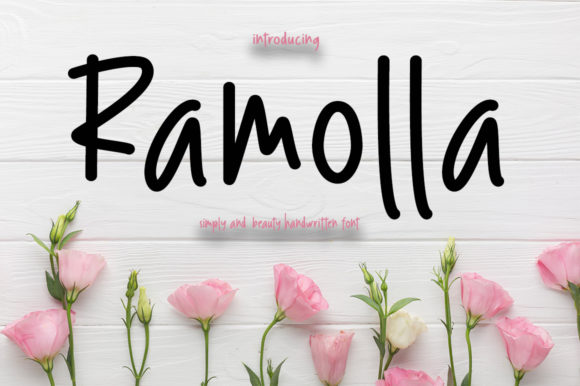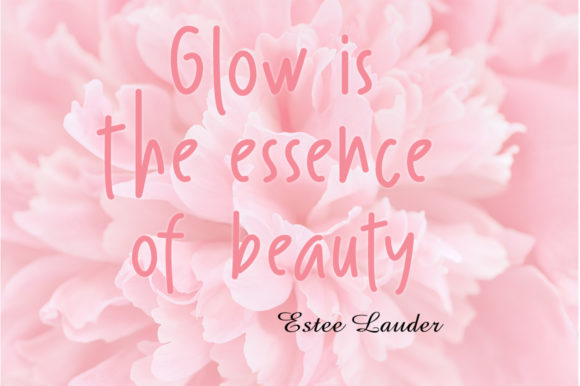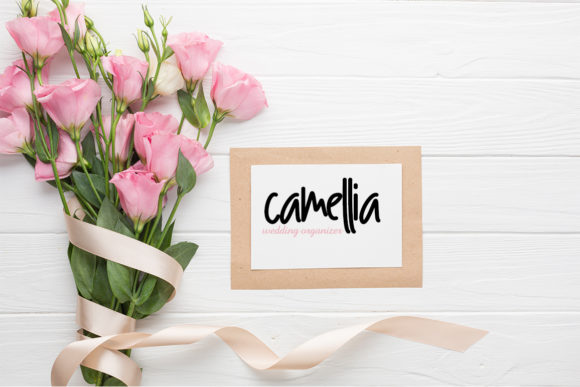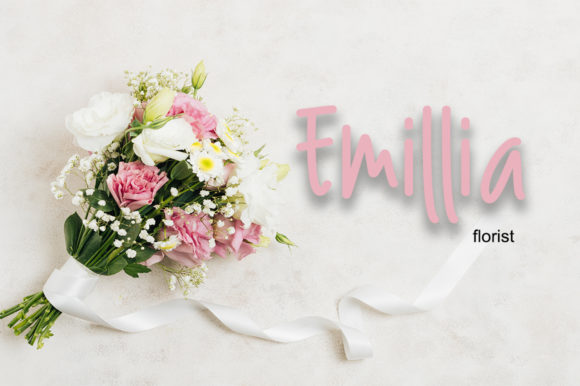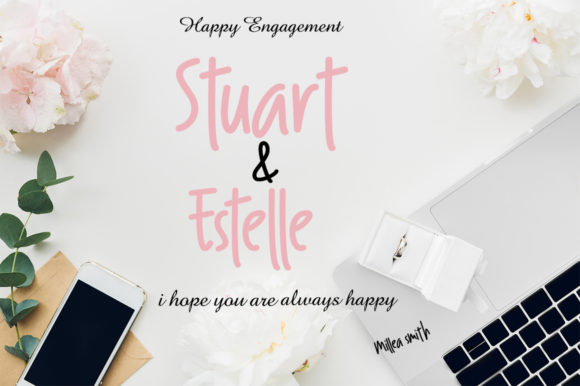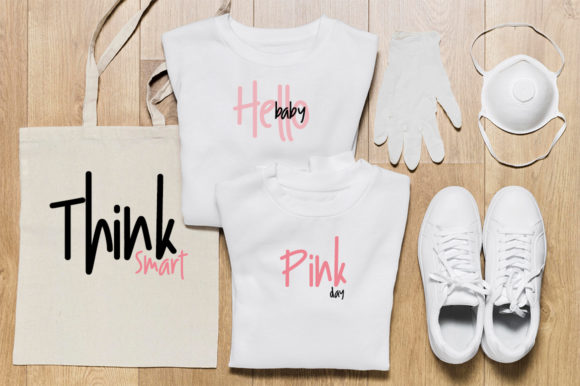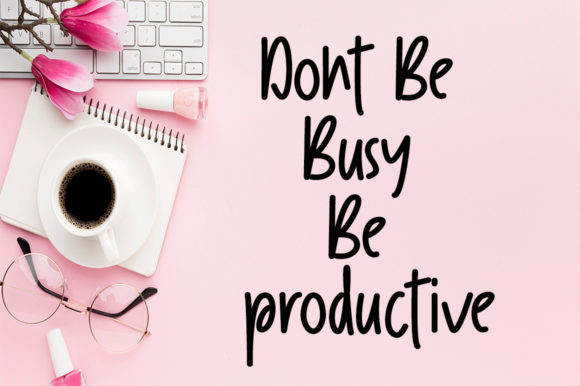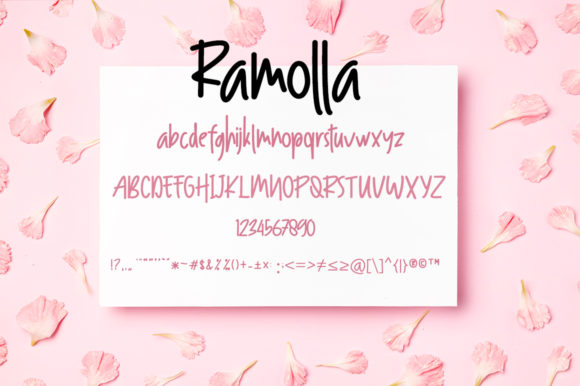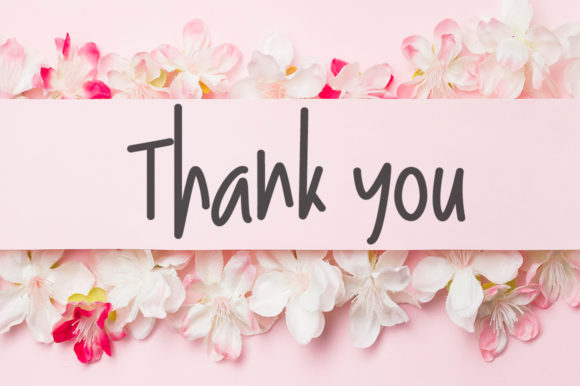
Ramolla Font
About Ramolla Font
Ramolla sounds like a delightful and versatile handwritten font that brings a sweet and friendly touch to any design. With its natural and unique style, Ramolla offers endless possibilities to create charming and creative projects. Here are some ideas on how to use Ramolla to add warmth and personality to your designs:
1. Personalized Stationery: Design personalized stationery sets, including notepads, letterheads, and envelopes, using Ramolla to make each piece feel warm and inviting.
2. Handwritten Quotes: Create beautiful quote graphics with Ramolla to share inspirational or uplifting messages on social media or as wall art.
3. Greeting Cards: Use Ramolla to design heartfelt and cheerful greeting cards for various occasions like birthdays, anniversaries, or holidays.
4. Wedding Invitations: Apply Ramolla to design romantic and whimsical wedding invitations that set the tone for a heartfelt celebration.
5. Baby Shower Decor: Design baby shower decorations with Ramolla, including banners, labels, and thank-you cards, for a charming and personalized touch.
6. Scrapbooking: Use Ramolla to add handwritten elements to scrapbook pages, capturing memories in a sweet and nostalgic way.
7. Children’s Book Illustrations: Apply Ramolla for hand-lettered elements in children’s books, creating a playful and approachable reading experience.
8. Bakery Signage: Design charming signage for bakeries, cafes, or dessert shops using Ramolla to attract customers with its sweet appeal.
9. Social Media Posts: Use Ramolla in social media graphics for businesses or personal accounts, adding a friendly and inviting touch to posts.
10. Product Labels: Apply Ramolla to product labels for artisanal or homemade items, emphasizing the personal touch and care put into each product.
11. Custom Wall Art: Design custom wall art or prints featuring names, quotes, or personalized messages using Ramolla for a heartfelt and unique display.
12. Kids’ Craft Projects: Use Ramolla in craft projects and activities for kids, creating fun and engaging educational materials.
13. Handmade Gifts: Apply Ramolla to personalize handmade gifts like custom mugs, pillows, or tote bags, making them extra special.
14. DIY Party Decorations: Create DIY party decorations using Ramolla for birthdays, baby showers, or special events, adding a personal touch to the celebration.
15. Journaling: Use Ramolla for expressive journaling or art journal pages, making the entries feel more personal and heartfelt.
16. Blog Headers: Design warm and inviting blog headers with Ramolla for lifestyle, food, or family-related blogs.
17. Customized Calendars: Design personalized calendars using Ramolla to add a lovely handwritten touch to each month.
18. Handcrafted Labels: Create handcrafted labels for homemade preserves, candles, or bath products using Ramolla to convey a sense of care and authenticity.
19. Kids’ Learning Materials: Use Ramolla in educational materials for young learners, making learning materials more engaging and approachable.
20. Inspirational Posters: Design motivational posters or prints featuring positive affirmations or quotes using Ramolla to inspire and uplift.
In conclusion, Ramolla is a sweet and friendly handwritten font that brings a warm and personal touch to various design projects. Whether it’s for stationery, social media graphics, personalized gifts, or children’s materials, Ramolla’s versatility allows it to adapt to numerous creative ideas. Embrace the natural charm of Ramolla and let your imagination run wild to create designs that evoke warmth, friendliness, and heartfelt connections with your audience.